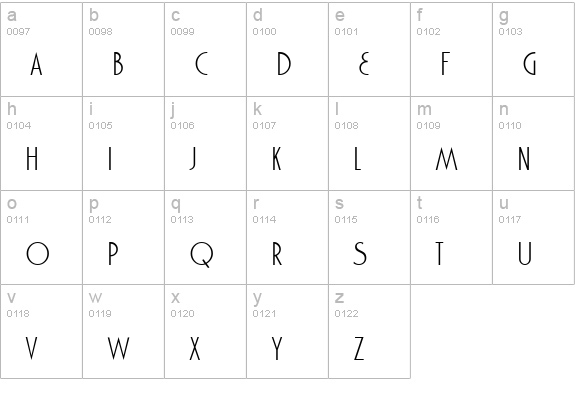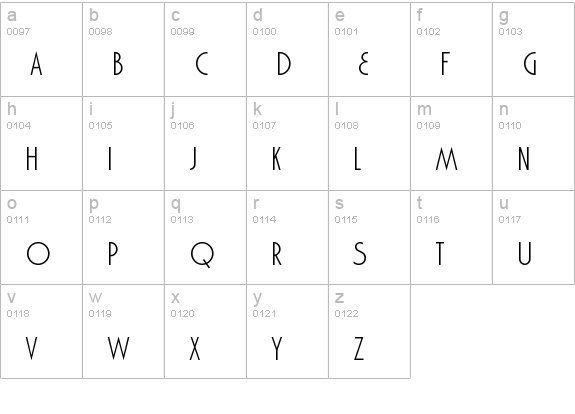
Marquisette BTN Light Font Details
Marquisette BTN Light is a refined, elegant variant in the Marquisette typeface family \xE2\x80\x94 well suited to elegant body text, refined sub-headings, and luxury branding.
Marquisette BTN Light font is a beautiful and elegant typeface that exudes sophistication and grace. With its delicate strokes and clean lines, this font is perfect for adding a touch of refinement to any design project. Designed with versatility in mind, Marquisette BTN Light font is suitable for a wide range of applications, including branding, advertising, invitations, and more. Its timeless appeal makes it a great choice for both traditional and modern designs. One of the best things about Marquisette BTN Light font is that it is available for free. Yes, you read that right! This stunning font can be freely downloaded at FontsMarket.com, allowing designers and creatives to access its beauty without any cost. Whether you're a professional designer or a hobbyist, this font is a fantastic addition to your collection. With Marquisette BTN Light font, you can effortlessly create eye-catching headlines, elegant logos, and captivating typography that will leave a lasting impression on your audience. Its legibility and clarity make it easy to read even at small sizes, ensuring that your message is conveyed with utmost clarity. So why wait? Download Marquisette BTN Light font today from FontsMarket.com and add a touch of sophistication to your next design project. Whether it's for personal or commercial use, this font is sure to elevate your designs to new heights. Enjoy the freedom of creativity with Marquisette BTN Light font!